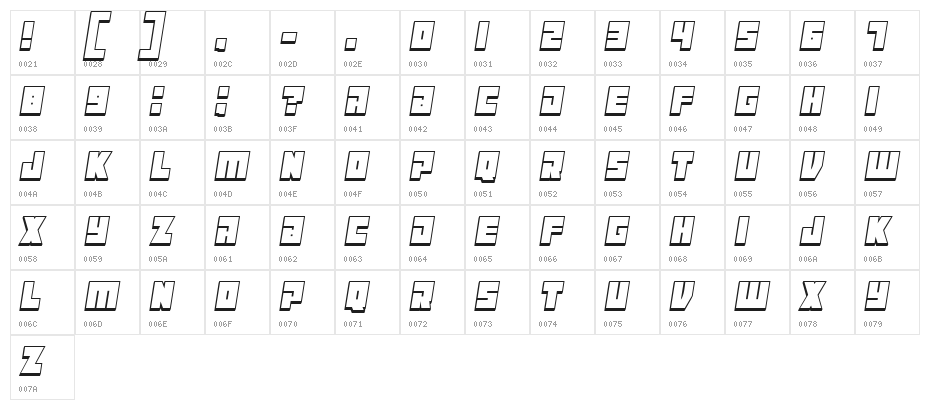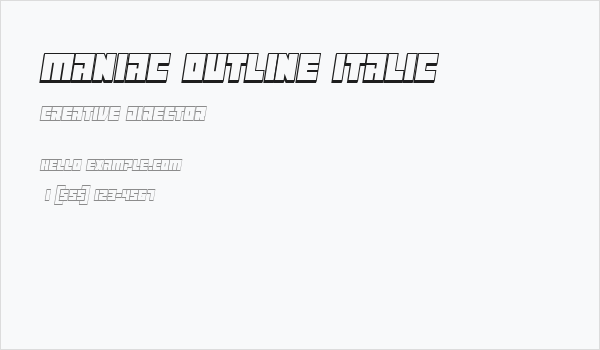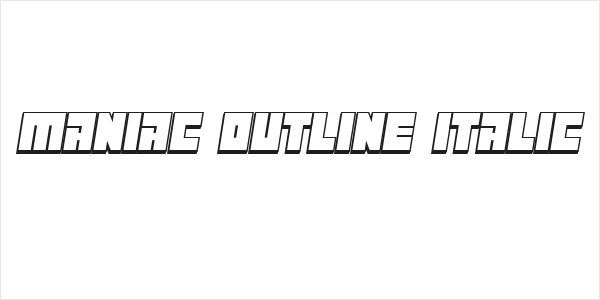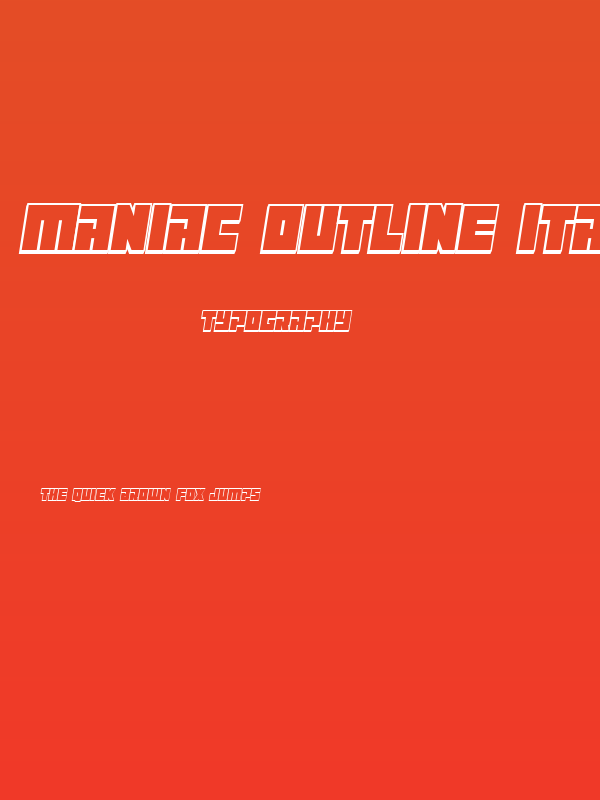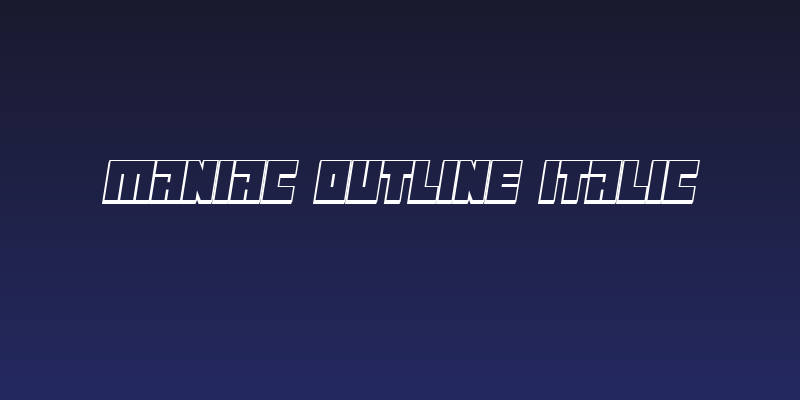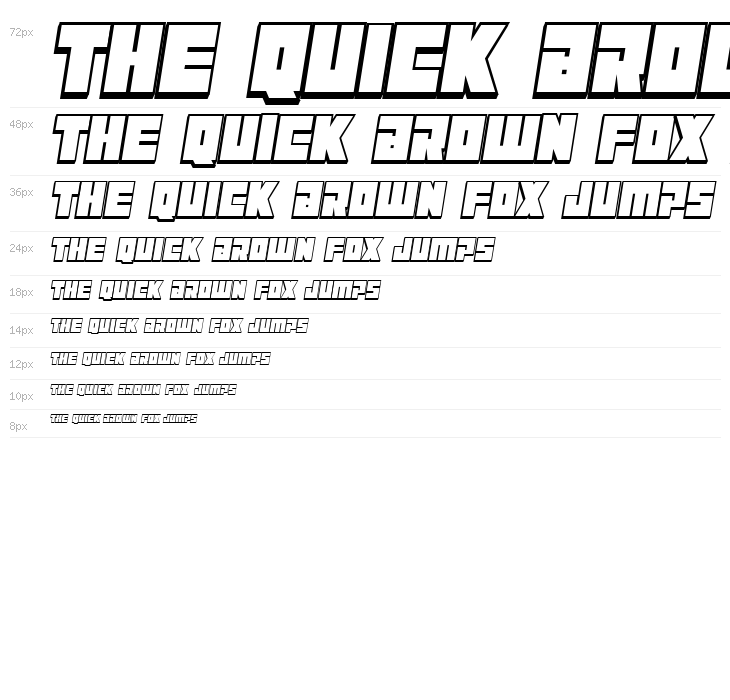
Maniac Outline Italic Font
Maniac Outline Italic Description
This font features a bold, geometric outline style with a distinctly modern and edgy appearance. The characters are italicized, giving them a dynamic and forward-leaning posture. The angular design and sharp edges create a sense of movement and energy, making it ideal for attention-grabbing headlines or titles. The uppercase and lowercase letters maintain a consistent style, with numbers and special characters following the same bold outline theme. The overall aesthetic is futuristic and impactful, suitable for projects that require a strong visual presence.
Proposed ProjectsIdeal for branding, posters, video game titles, and any project needing a futuristic and bold look.